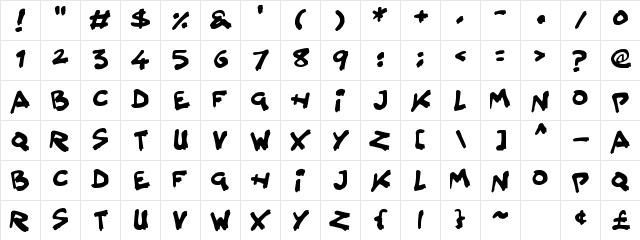
Splatter Kings Regular
Design Context for Splatter Kings
Splatter Kings is a composed and adaptable typeface that performs quietly and consistently across a wide range of design contexts.
Pro Tip: Use Splatter Kings in both headline and body roles to test its range before committing to a single application.